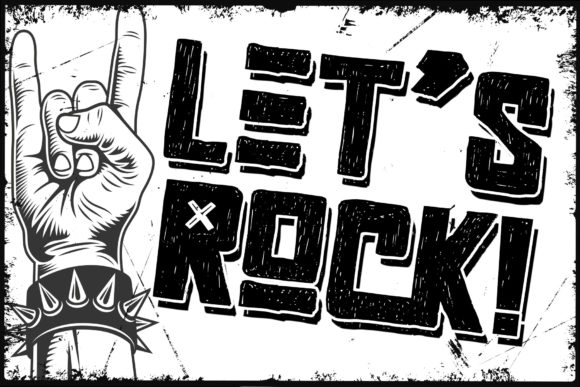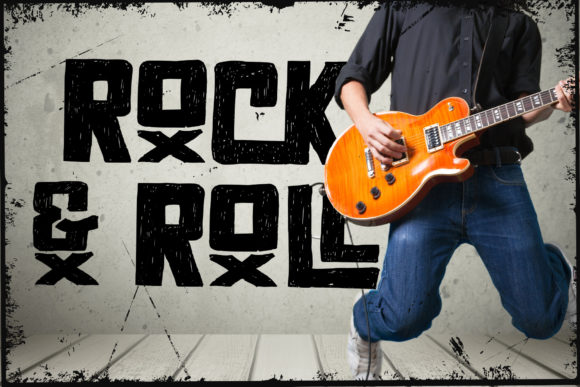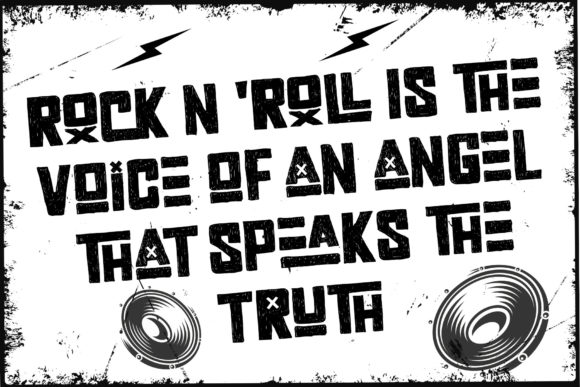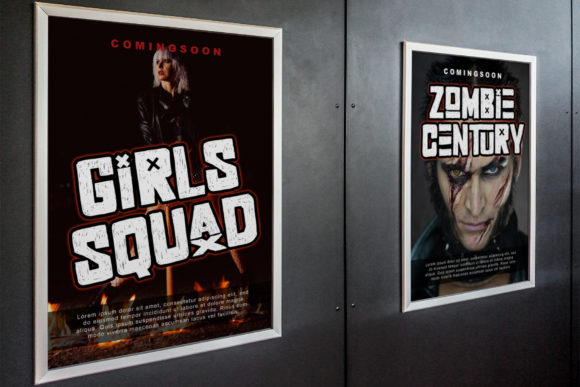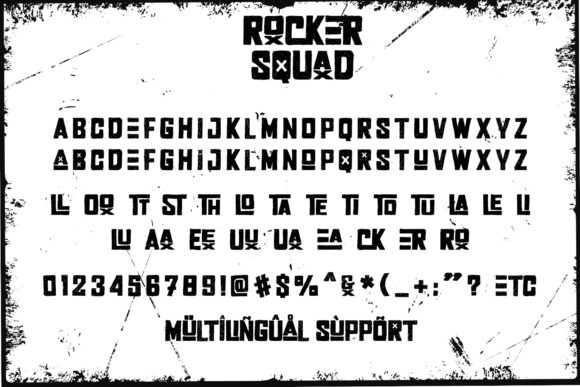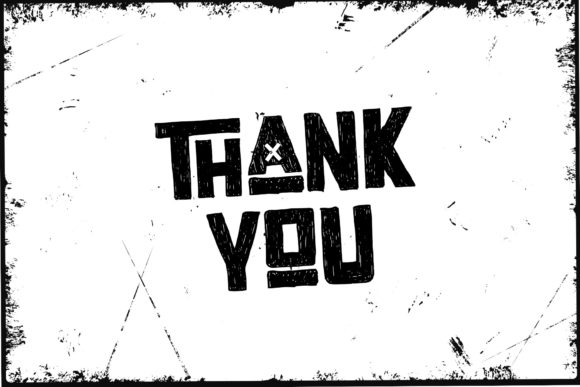
Introduction to Rocker Squad Font
Imagine you’re brainstorming ideas for your next creative project, and you’re stuck on the perfect font to capture the essence of your design. You scroll through your design resource library, and suddenly, a cool, edgy font catches your eye – the Rocker Squad Font. Its thick, street art vibe instantly sparks inspiration, and you can’t wait to get creative.
As designers, we’re always on the lookout for high-quality fonts that can elevate our designs and help us stand out. The Rocker Squad Font is a valuable addition to any design arsenal, offering a transparent background and a wide range of glyphs and swashes that can be easily accessed with its PUA encoding.
Whether you’re working on a t-shirt design, a sportswear logo, or an advertisement, the Rocker Squad Font is a versatile choice that’s sure to make your design pop.
Key Features of Rocker Squad Font
- High-quality design resource ideal for creative projects, including music, entertainment, and lifestyle themes.
- Features a transparent background, allowing for easy layering and customization in your design projects.
- Designed with a bold and edgy aesthetic, the Rocker Squad Font is perfect for adding a rebellious vibe to your creative project.
Honest Review: Rocker Squad Font
I recently had the chance to work with the Rocker Squad Font, and I’m excited to share my thoughts on this design resource. Overall, I found it to be a great addition to my creative project.
- ✨ High quality design that’s perfect for music-related projects
- ✨ Easy to use, with a clear and legible font style
- ⚠️ Limited font styles and variations available
- ⚠️ Not ideal for projects that require a lot of font customization or experimentation
Overall, I’m impressed with the Rocker Squad Font. It’s a great design resource for music-related projects or any creative project that needs a bold and edgy font style. While it has some limitations, it’s a great free download that can add some excitement to your design work.
The Rocker Squad Font is a high-quality design resource that offers a unique and bold style, perfect for creative projects. With its transparent background, it can be easily integrated into various design applications.
The Rocker Squad Font is perfect for creating bold and eye-catching designs for music festivals, concerts, and other music-related events. It can also be used for creating custom logos, graphics, and more.